+23 Thick Cursive Fonts 2022
+23 Thick Cursive Fonts 2022. 41 best thin cursive fonts (simple, loose and handwritten) adobe photoshop adobe illustrator affinity designer affinity photo affinity publisher adobe indesign procreate. Self deception is another lovely cursive font choice worthy of your consideration.
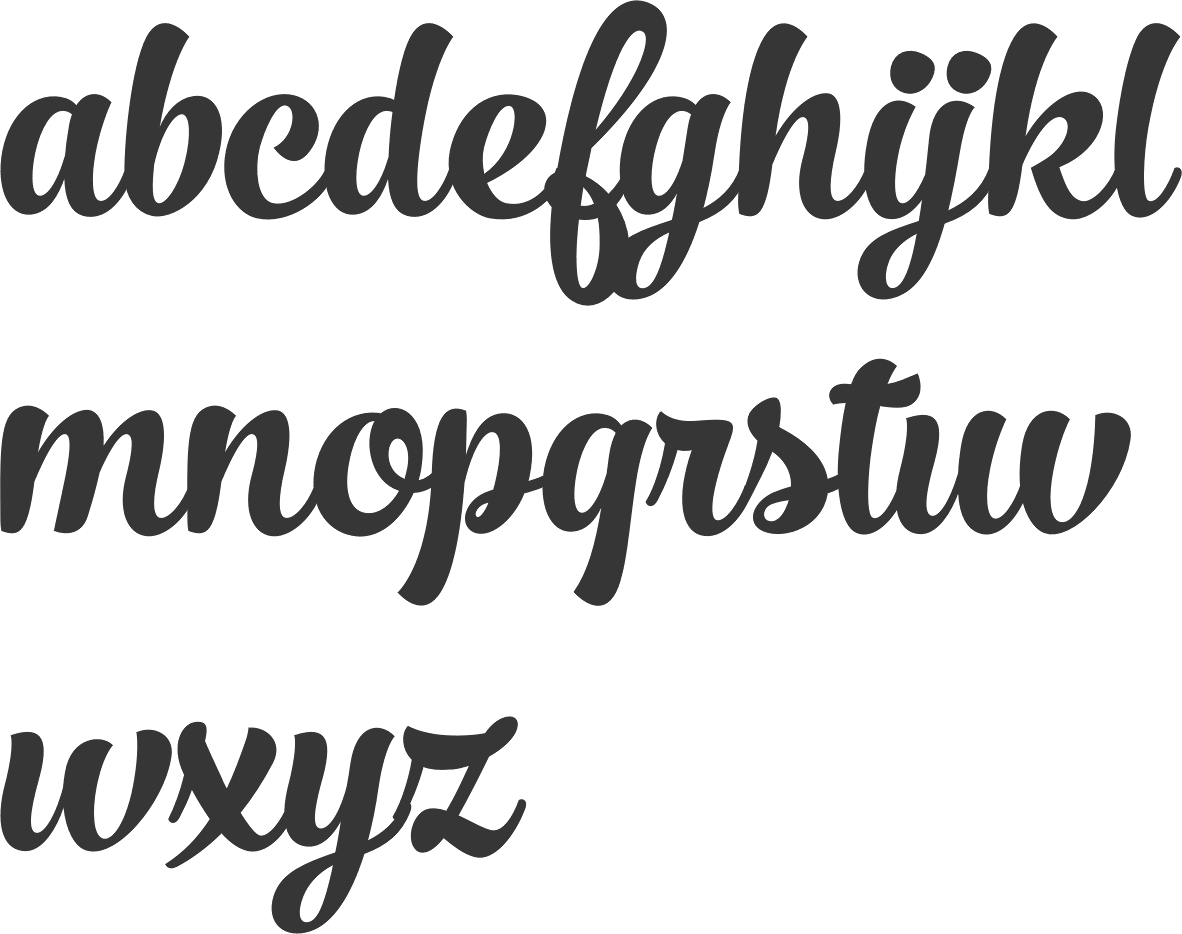
Bold cursive script fonts | fontspace bold cursive script fonts 308 free fonts popular dattermatter bold persoinal use by billy argel fonts personal use free richard clean by billy. 41 best thin cursive fonts (simple, loose and handwritten) adobe photoshop adobe illustrator affinity designer affinity photo affinity publisher adobe indesign procreate. There are a number of different types of cursive fonts out there, so it's important to choose the right one for your project.
The Best Bold Cursive Fonts On Envato Elements.
There are a number of different types of cursive fonts out there, so it's important to choose the right one for your project. Thick fonts | fontspace upload fonts styles collections font generator ( ͡° ͜ʖ ͡°) designers stuff thick fonts 414 free fonts related styles cool calligraphy cursive script handwriting. A nice combination of thin and thick strokes.
Black Jack Is A Beautiful Cursive Font With Thick And Thin Letter Combinations.
Sensa Brush Is A Wonderful, Thick Font With Lots Of Character.
Stay Wonderful Is A Beautiful And Good Cursive Font With A Handwritten Feel.